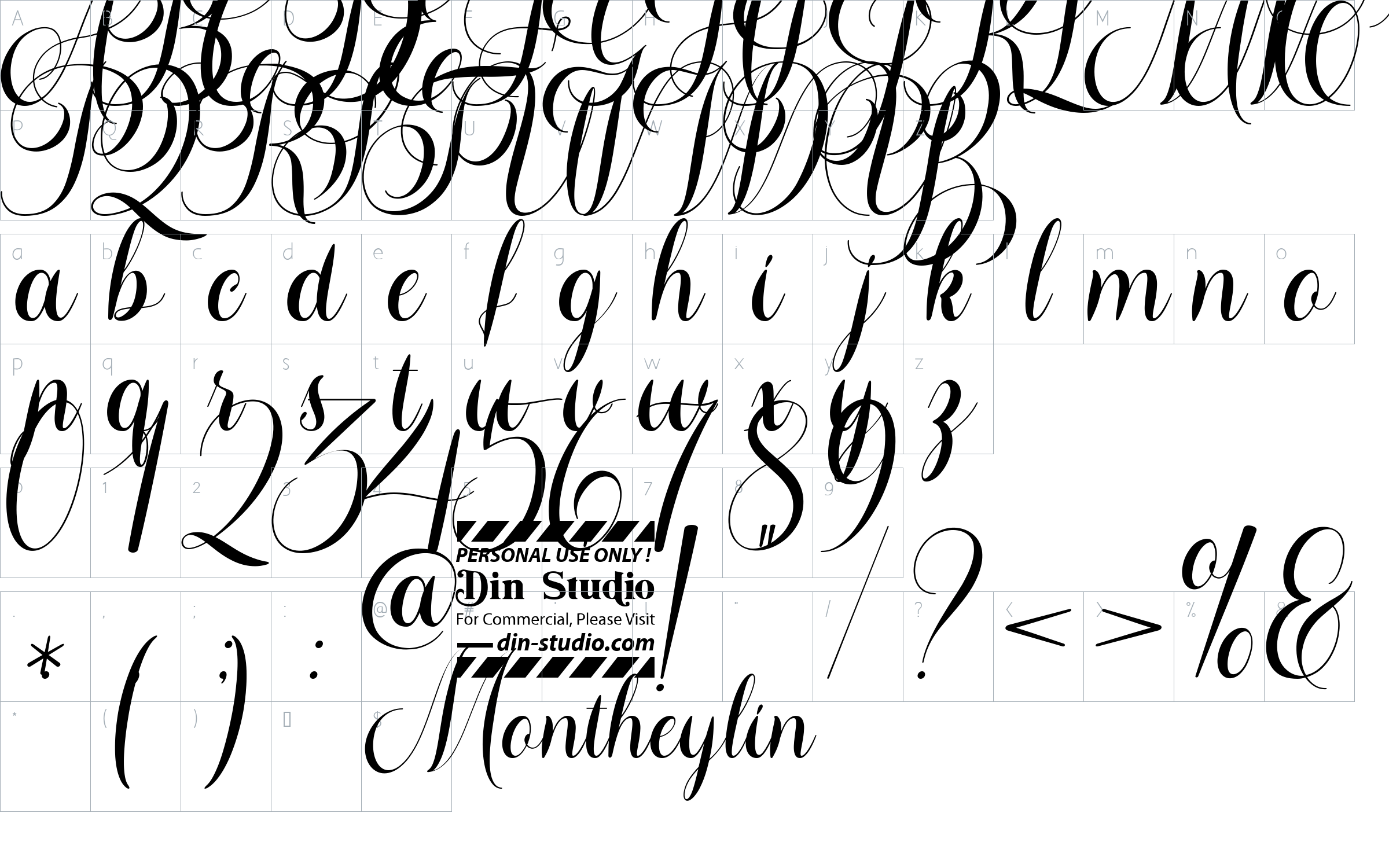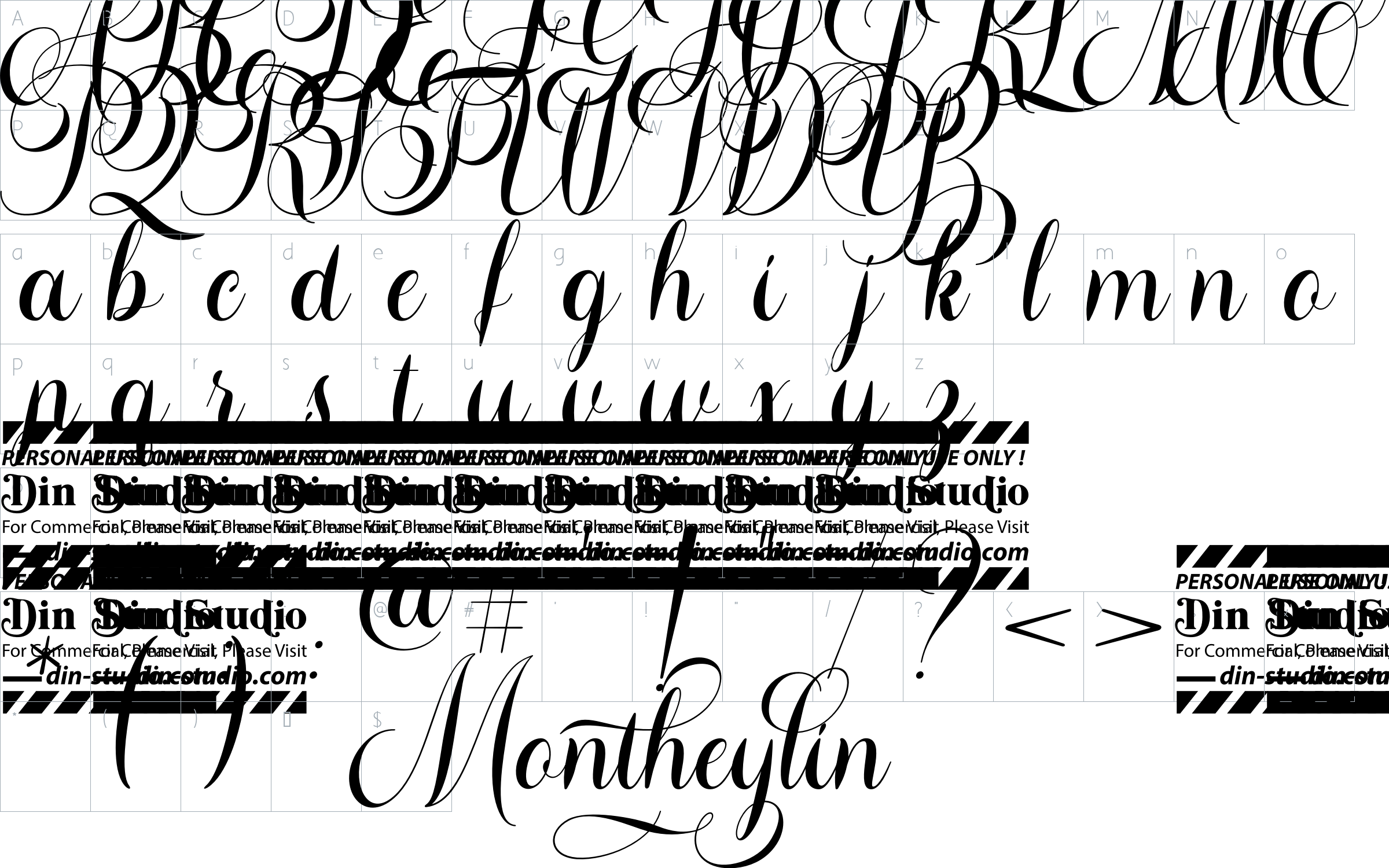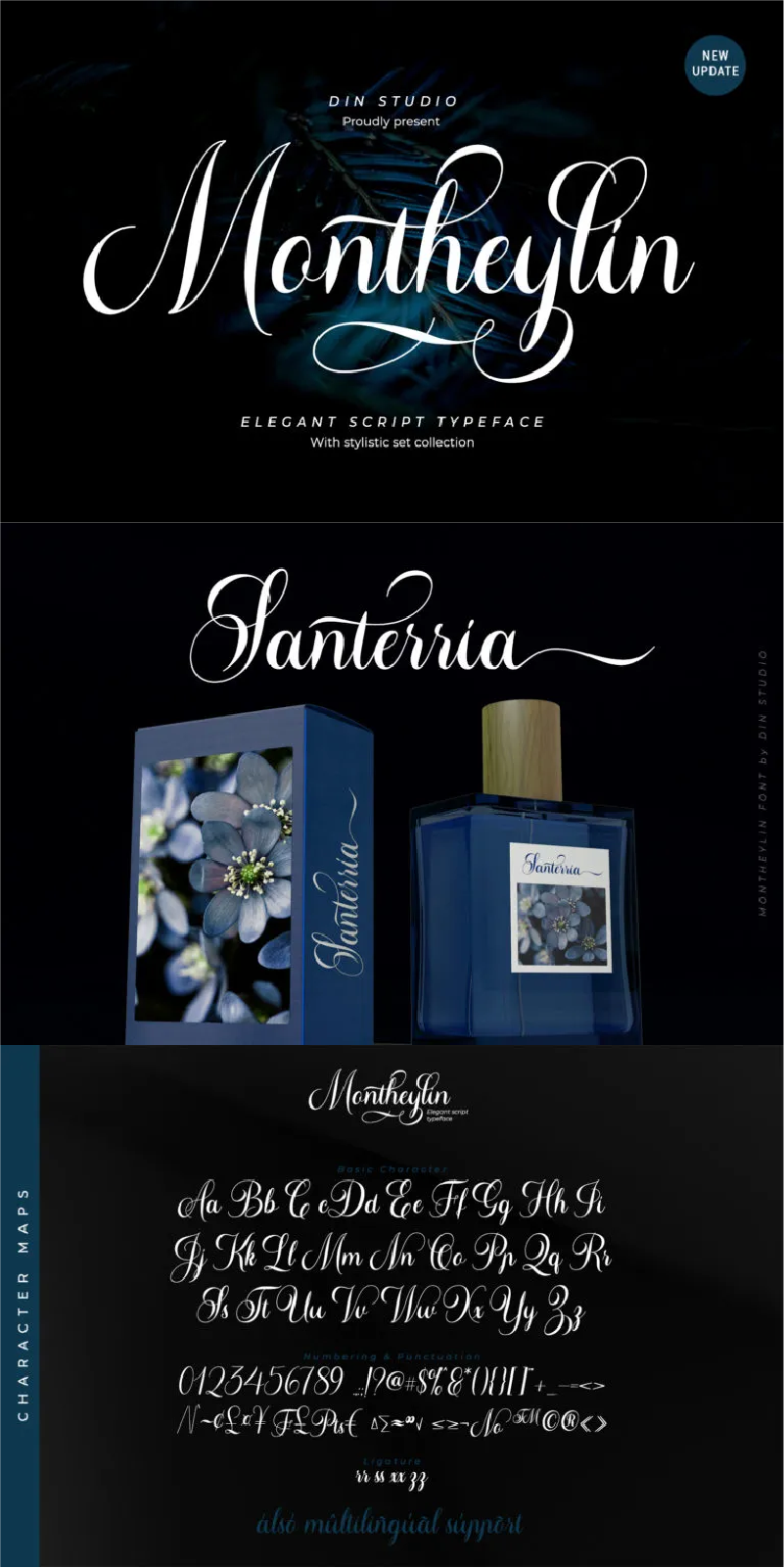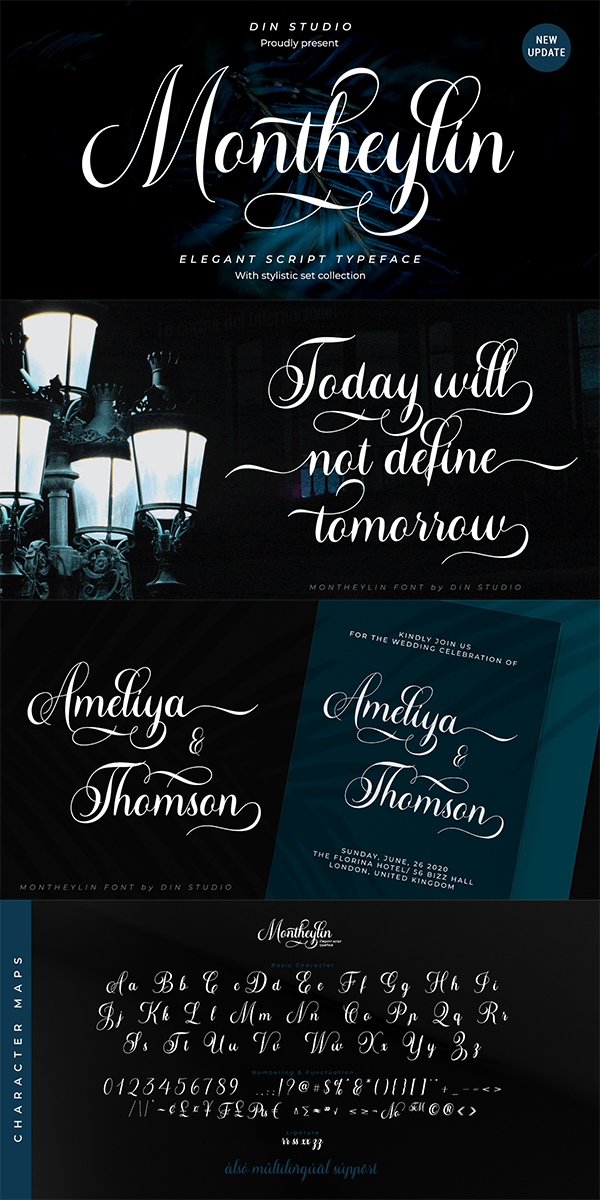
Monthelyn Font
About Monthelyn
Montheylin is a elegant calligraphy with natural and handwritten style. It brings a beautiful and modern typeface. Made for any professional project branding. It is the best for logos, branding, wedding and quotes. See the previews above to get some inspiration on how you can use them. Enjoy the font!